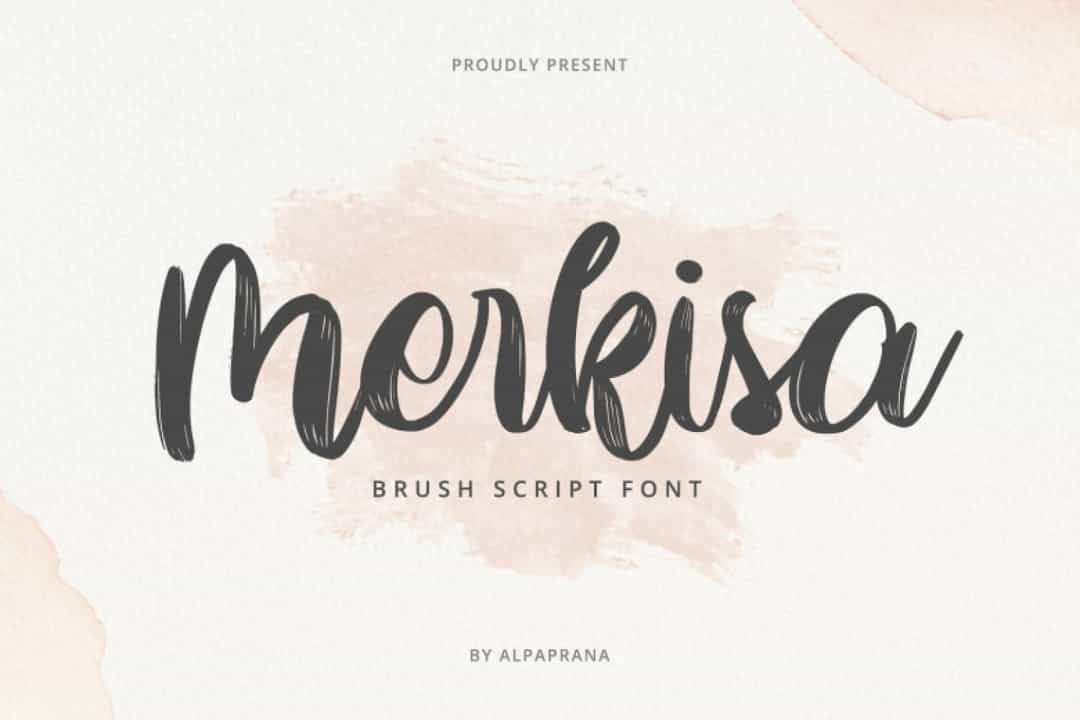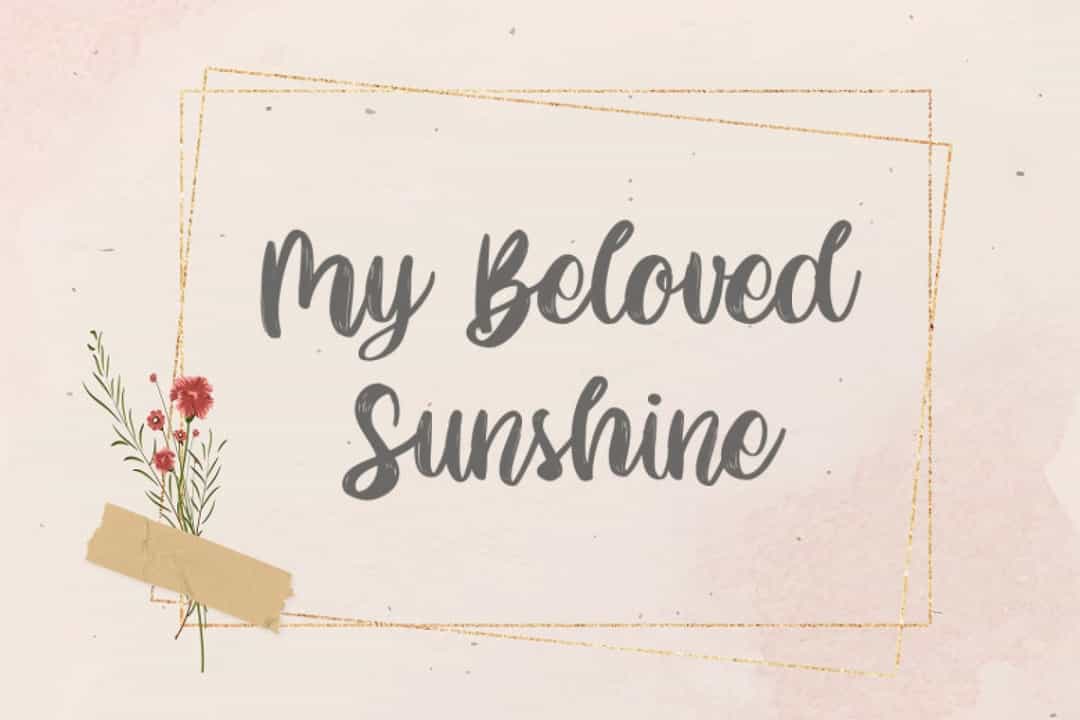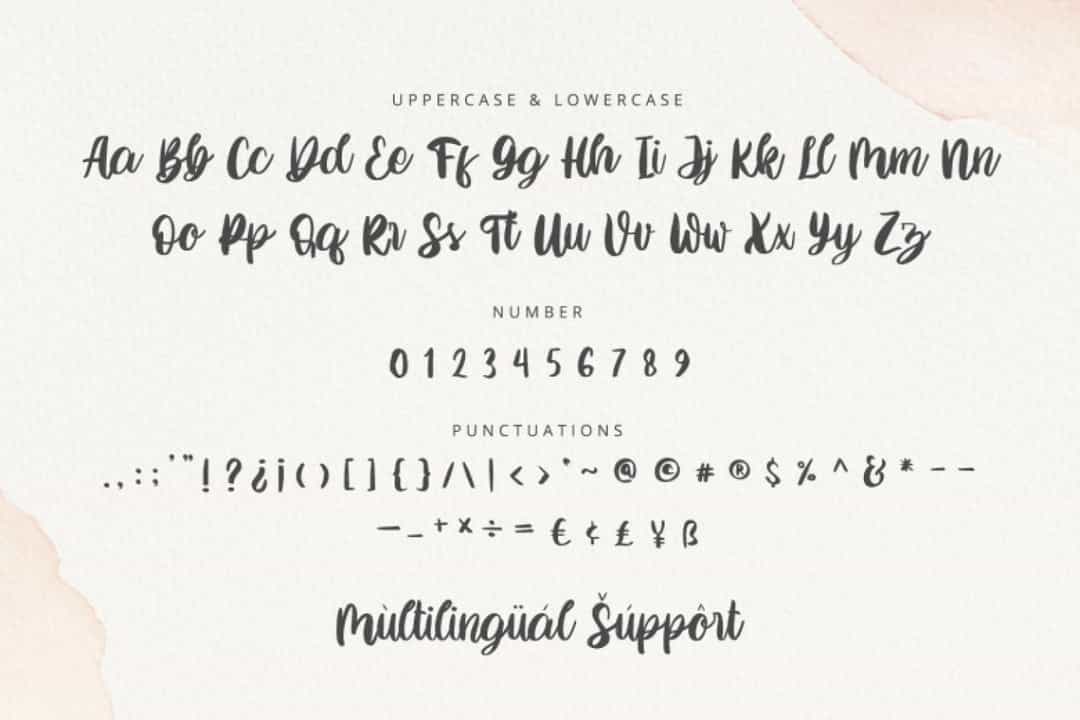
Merkisa is an elegant brush script font with genuine and casual charm that can be used for creating branding, logo design, lettering, poster designs, logotypes, clothing magazines, packaging shopping bags posters T-shirts book covers photography events or any other creative project in design.